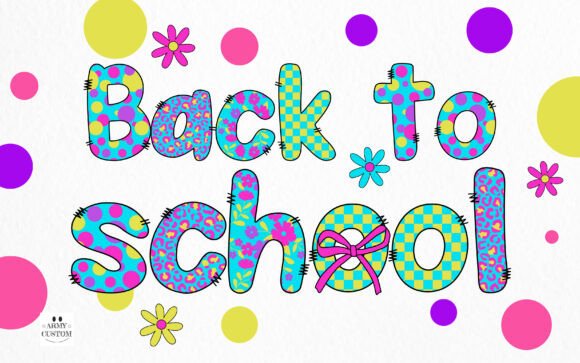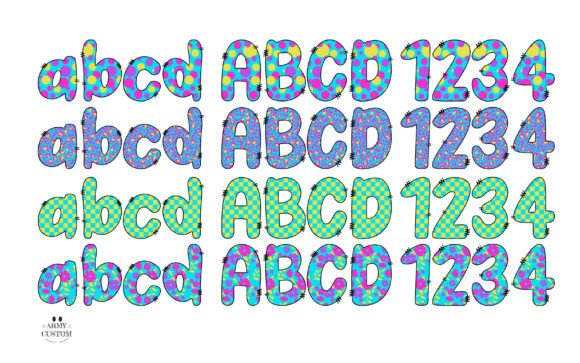
Introducing Brightarmy Check Font: Unleash Your Creativity with a Blast of 90s Nostalgia
Are you a designer, crafty enthusiast, or simply a fan of the iconic 90s style? Look no further than the Brightarmy Check Font, part of the Bright Bundle OTF – 90s Kid Color Font Collection. This bold and energetic color font collection is here to transport you back to a world of playful nostalgia, where creativity knows no bounds and self-expression reigns supreme.
A World of Playful Nostalgia
The Bright Bundle OTF font collection is a vibrant tribute to the radical style of the 1990s. With four distinct, high-energy styles to choose from, each bursting with color, personality, and attitude, you’ll be spoiled for choice. Whether you’re working on a design project, crafting a handmade masterpiece, or simply looking for a fun and creative outlet, this font collection is the perfect companion.
Unique Character Designs
What sets the Brightarmy Check Font apart is its uniquely patterned and stitched characters, complete with playful outlines that give the font a patchwork feel. Imagine retro stickers, DIY crafts, and childhood whimsy all rolled into one – that’s what you get with this delightful font collection. From bubbly polka dots to electric leopard prints, floral explosions, and checkerboard madness, every letter tells a vibrant story waiting to be told.
Key Features of Brightarmy Check Font
- Bold and Energetic: The Brightarmy Check Font is designed to make a statement, with bold lines, bright colors, and an infectious energy that’s impossible to ignore.
- Playful Nostalgia: This font collection is a loving tribute to the iconic style of the 1990s, with a modern twist that’s perfect for designers and crafters of all ages.
- High-Energy Styles: With four distinct styles to choose from, you’ll have plenty of creative options to suit your project, from bold and bright to playful and whimsical.
- Unique Character Designs: Each character is meticulously crafted with unique patterns, stitches, and outlines, giving the font a one-of-a-kind feel that’s sure to turn heads.